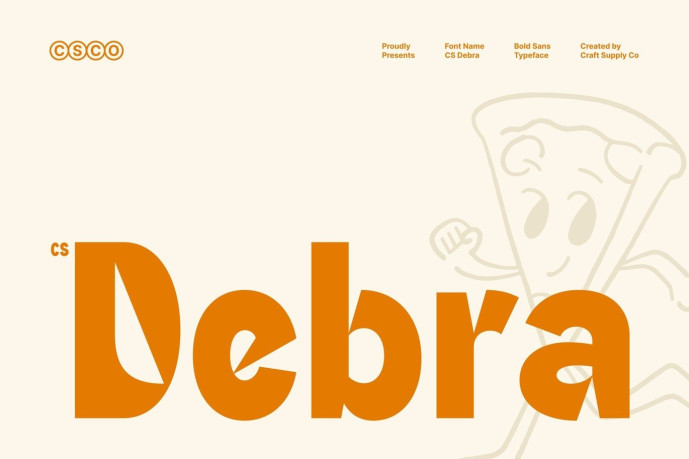
Debra – Bold Sans Serif Font
Designer: Craft Supply Co.
CS Debra – Bold Geometric Display Sans Serif: Where Rounded Geometry Meets Retro Modern Expression Rounded Forms with Playful Cut-Out Details This is a bold geometric display sans serif that combines strong letterforms with rounded shapes and distinctive organic cut-out details. Its unique construction softens the bold geometry, creating a playful and expressive personality while maintaining a confident visual presence. The result is a typeface that feels approachable, memorable, and full of creative energy.
Retro Modern Style with Contemporary Appeal This font balances nostalgic charm with clean contemporary execution. Its bold proportions and smooth curves evoke classic graphic design influences, while the organic cut-outs introduce a fresh, artistic twist that gives the font a unique and recognizable identity.
Expressive Typography with Strong Visual Impact This font creates typography that is bold without feeling rigid. Its expressive forms naturally draw attention, making it ideal for display applications where personality and readability are equally important. The harmonious blend of rounded geometry and retro-modern styling gives every composition a vibrant and engaging character.
Perfect for Logos, Posters, and Creative Projects Perfect for logos, posters, editorial layouts, packaging, advertising campaigns, merchandise, social media graphics, and a wide range of contemporary creative projects. Its bold geometric forms and expressive retro-modern aesthetic make it ideal for designs that communicate originality, confidence, and visual energy.